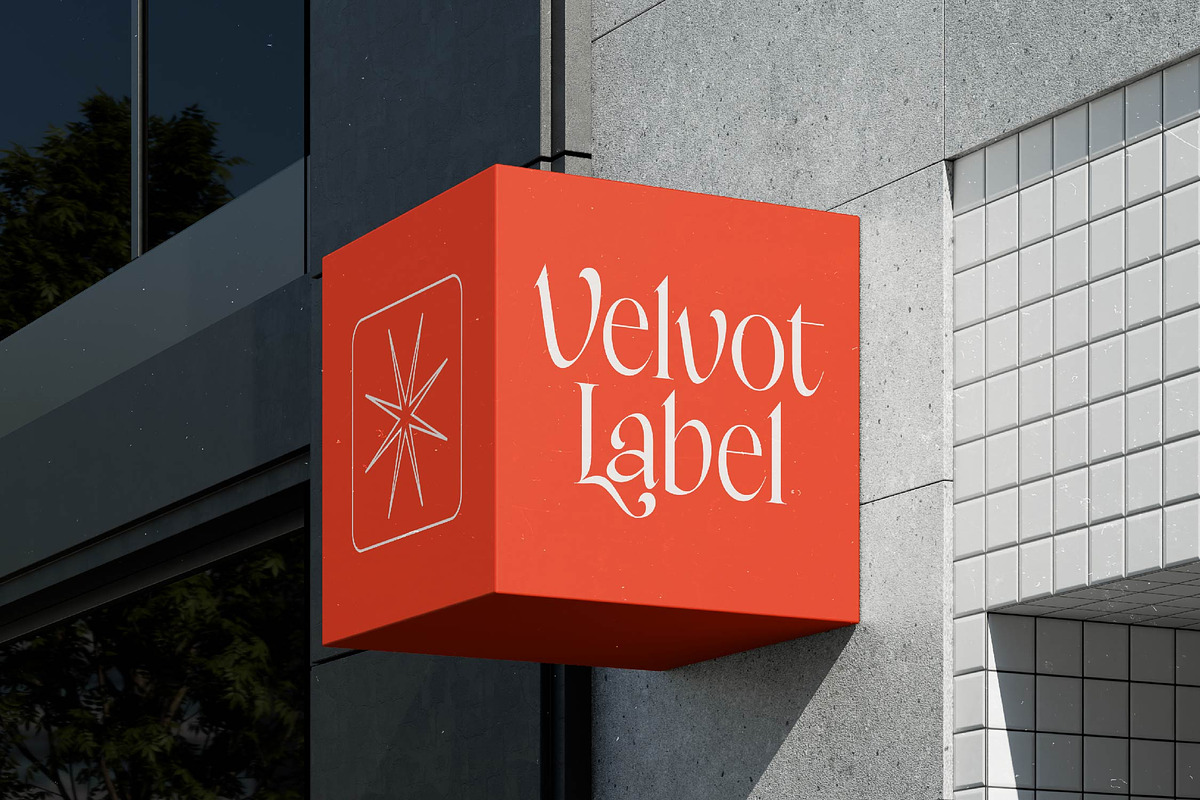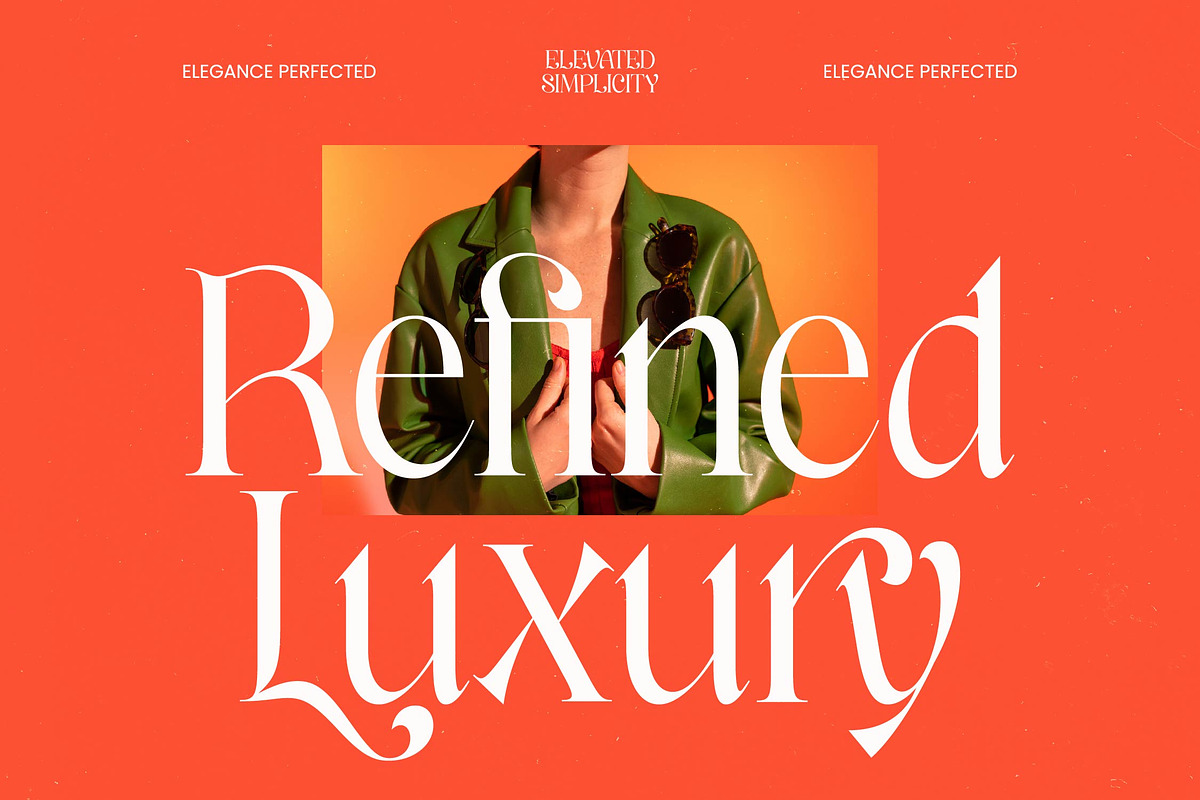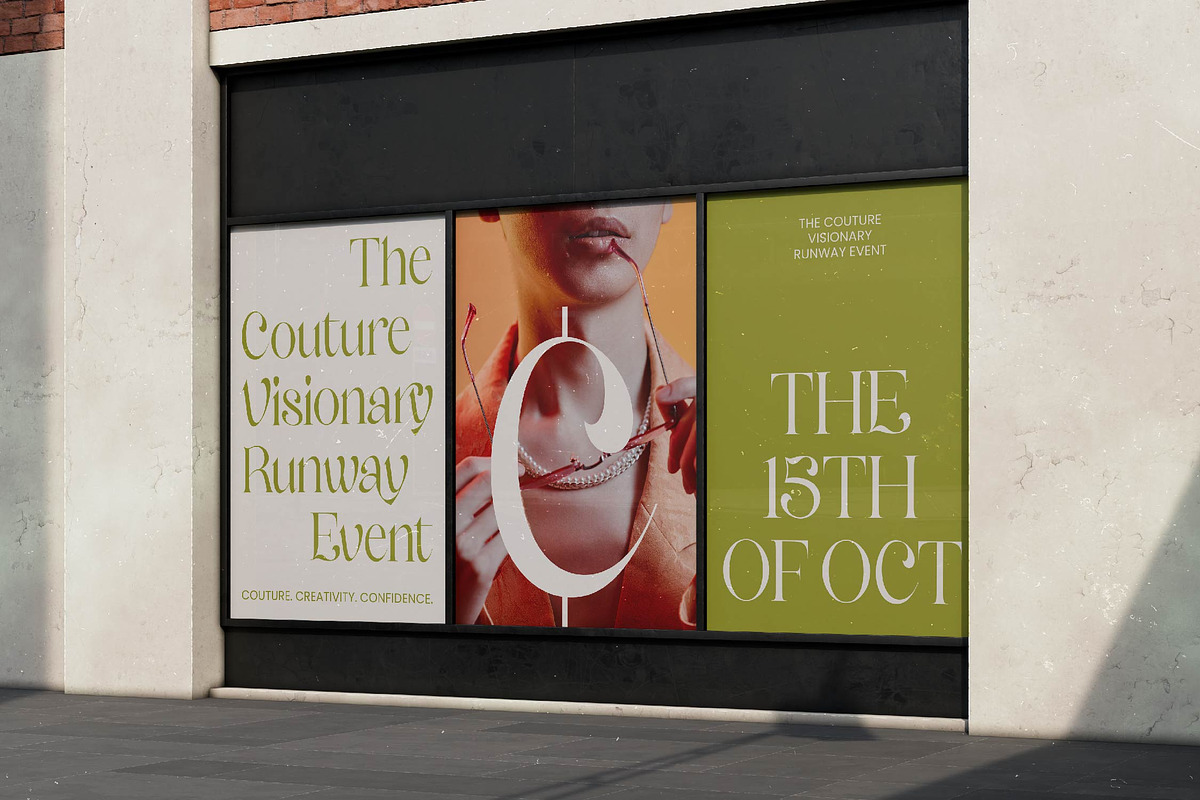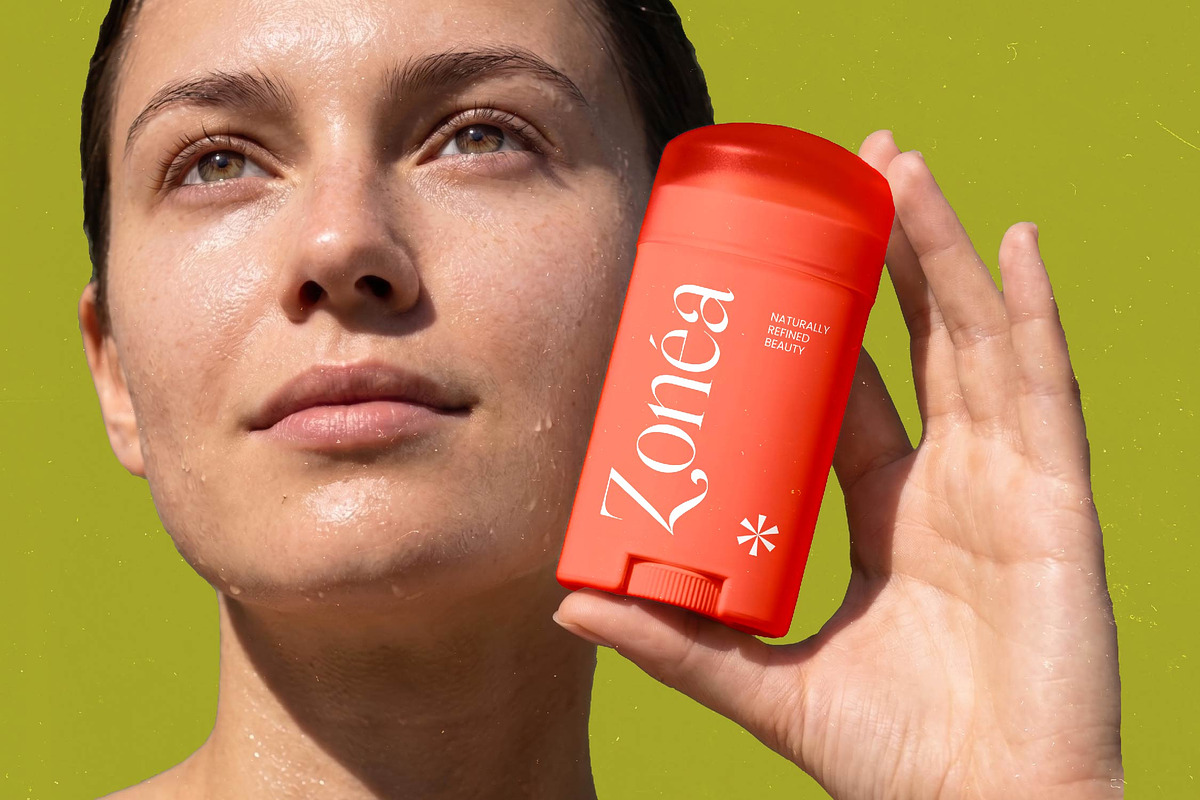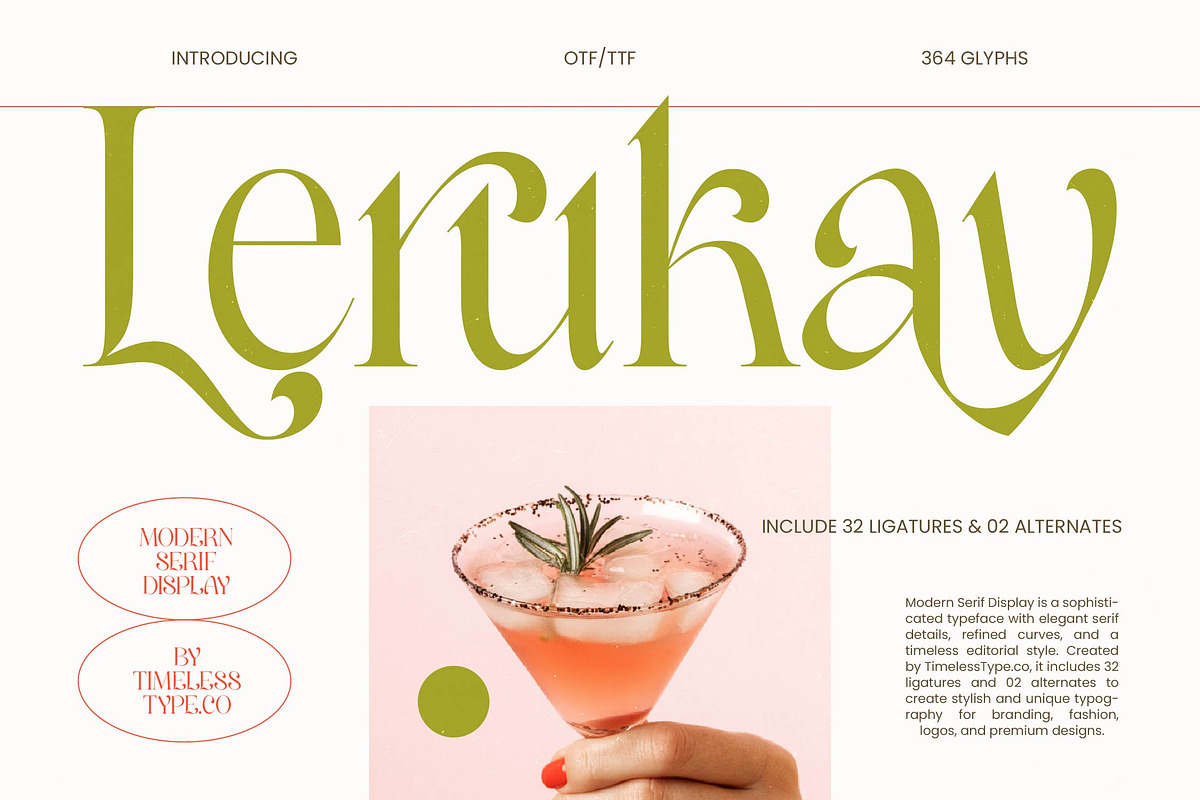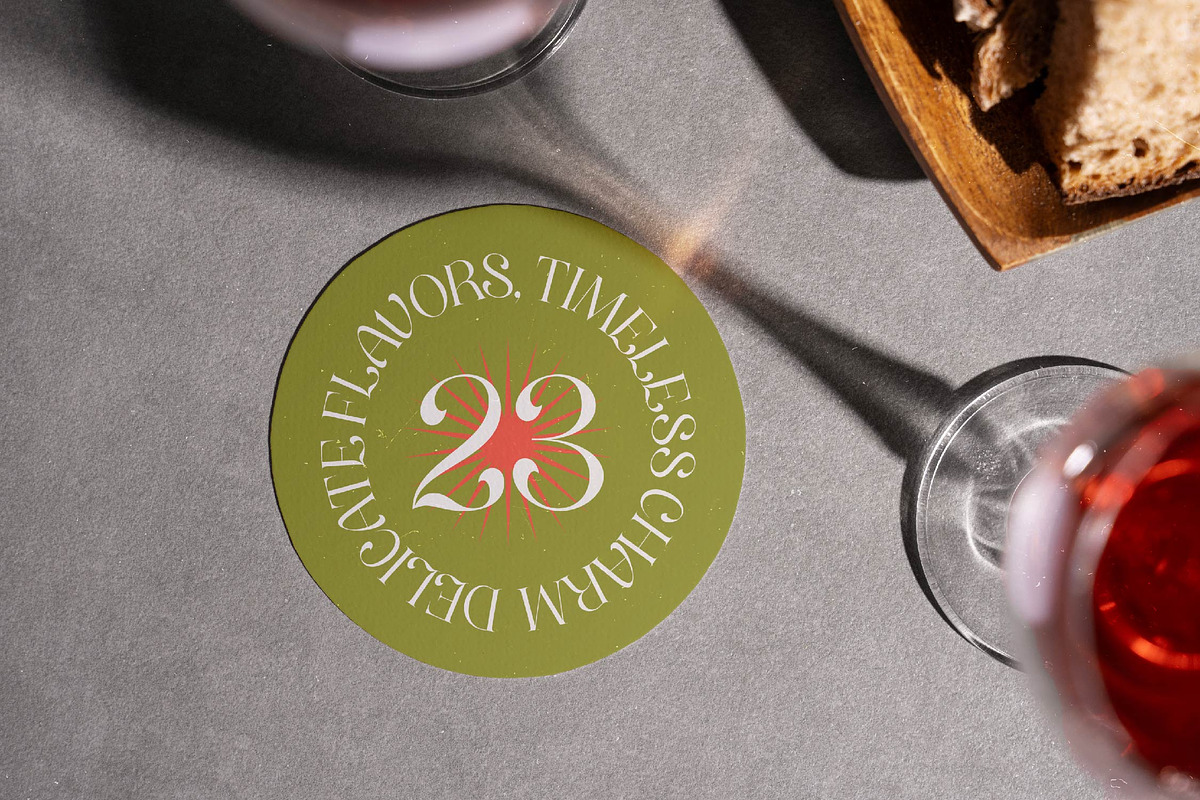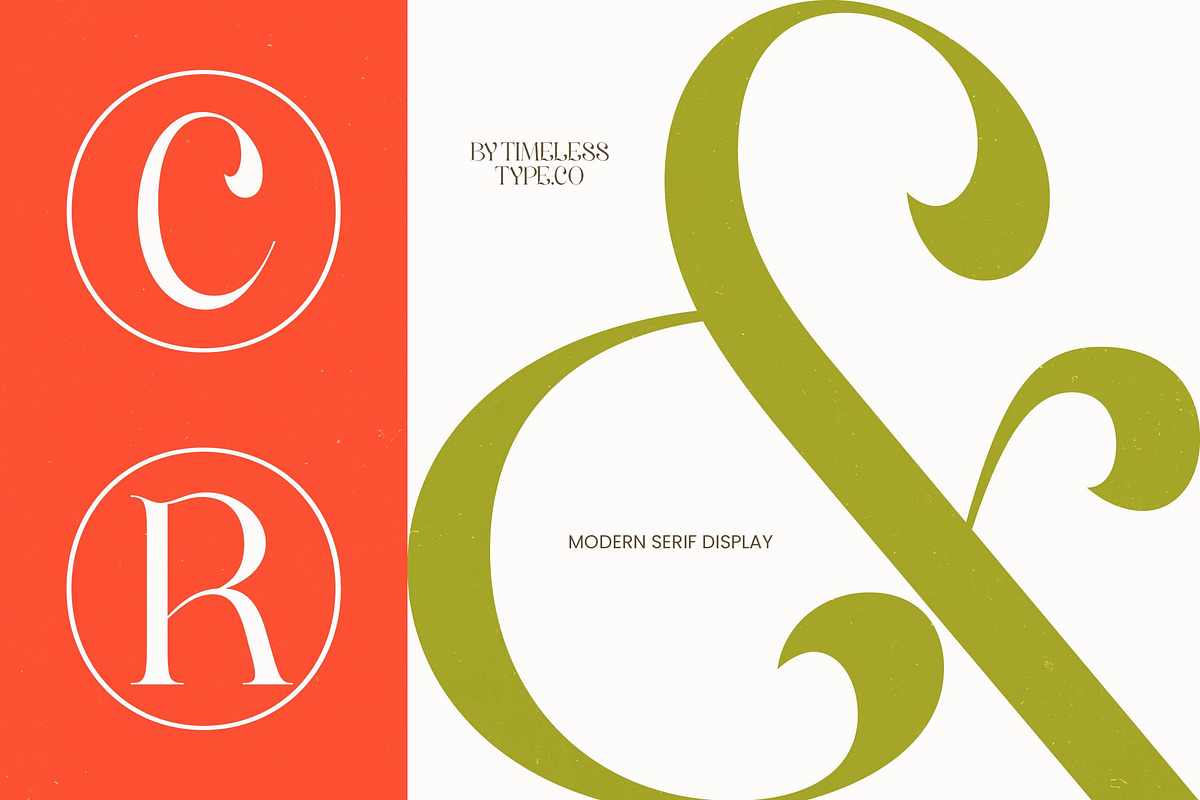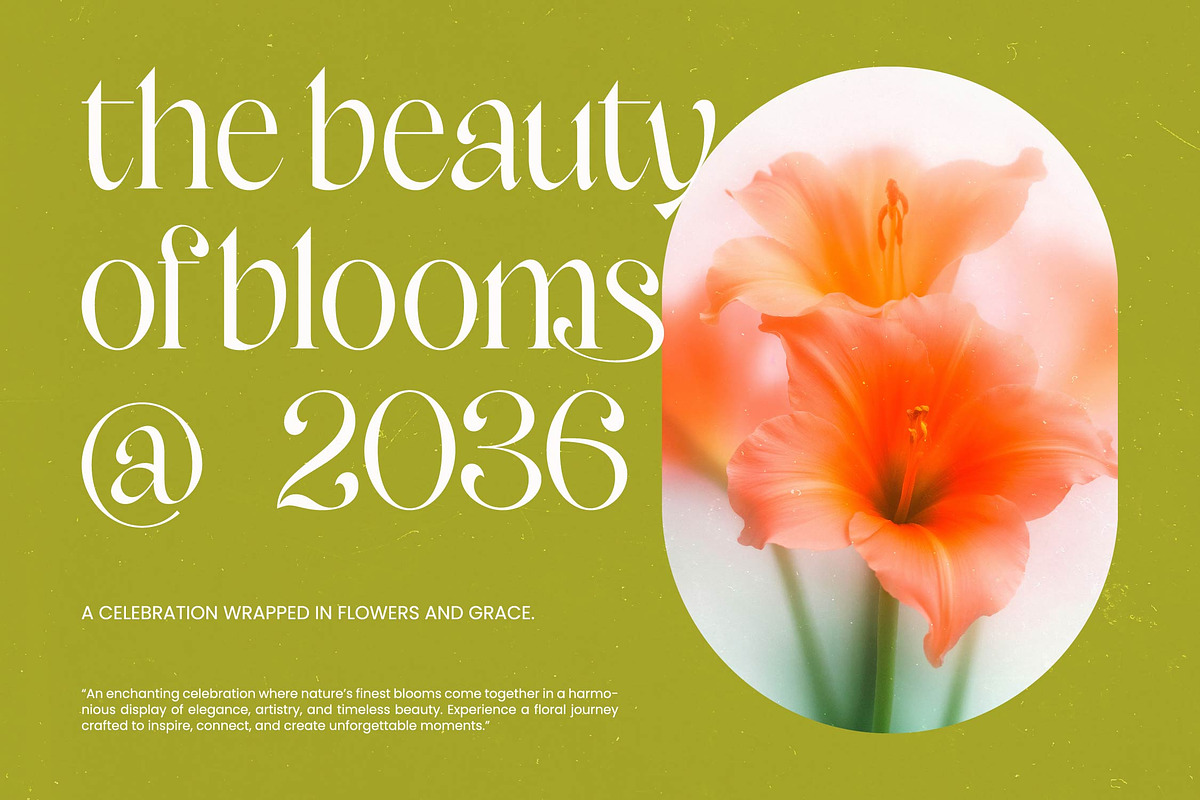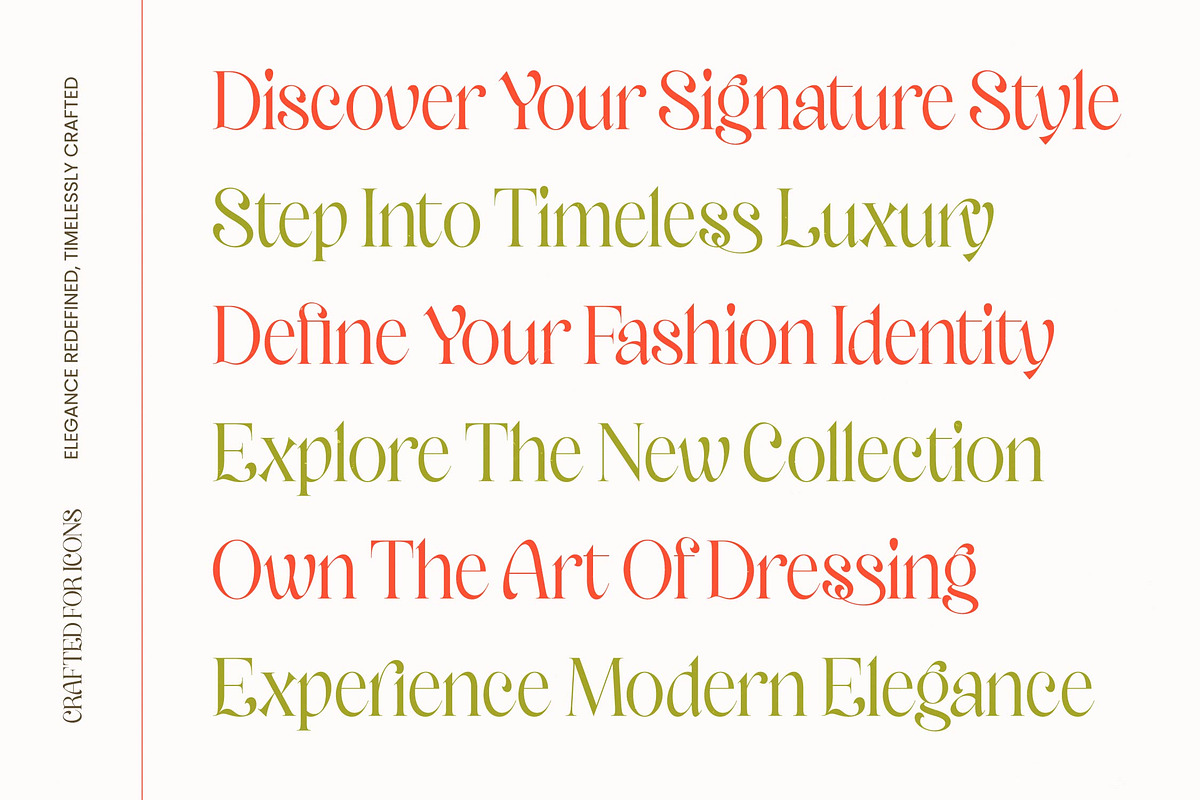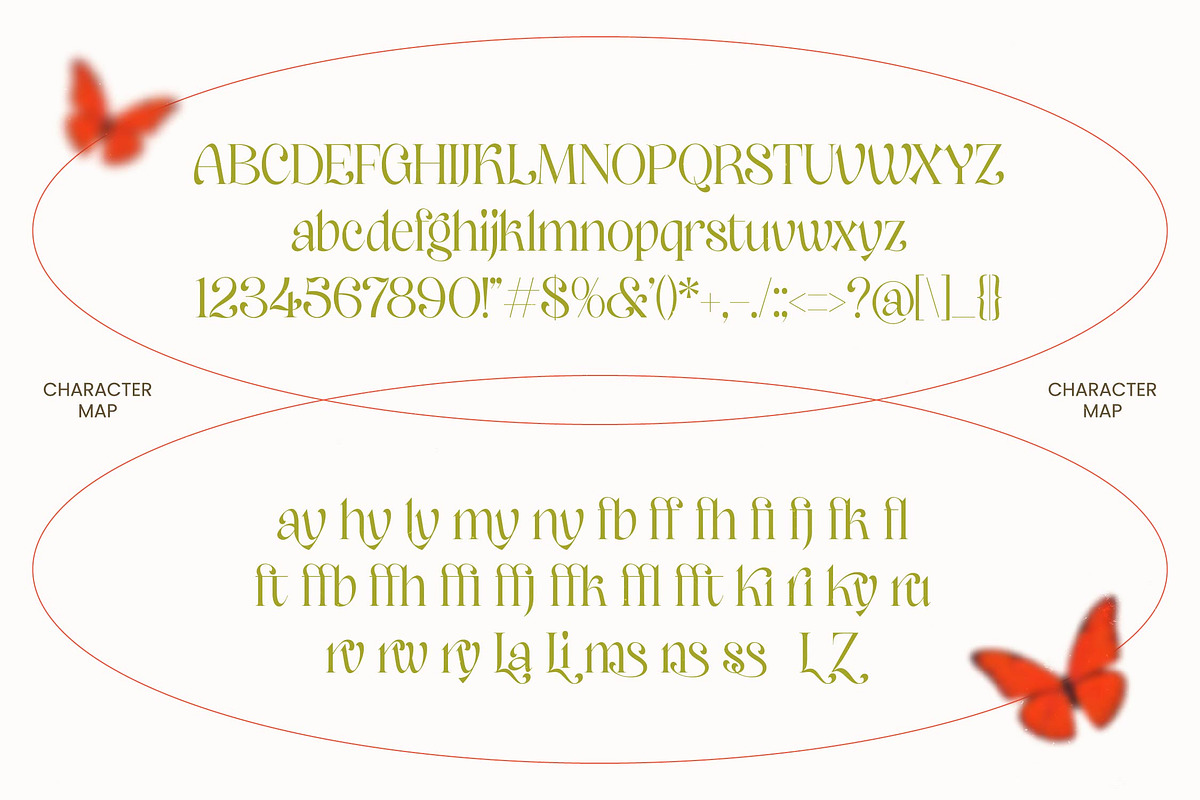
Lerukay Modern Luxury Serif
Lerukay - Modern Luxury Serif , Experience the pinnacle of sophisticated design with Lerukay, a typeface that redefines contemporary elegance for the discerning creative. This stunning display face invites designers to embrace a world of timeless luxury and refined artistic expression through its meticulously balanced letterforms.
Inspired by the grace of high-fashion editorial spreads and the sleek silhouettes of modern architecture, the font captures a unique atmosphere of effortless poise. Its balanced strokes and sharp details evoke the feeling of a sun-drenched European terrace or the curated interior of a high-end luxury boutique.
This modern serif display is meticulously crafted to deliver a powerful branding impact through its striking high-contrast serif anatomy. It serves as an essential editorial font for those seeking luxury typography that commands attention while maintaining a delicate, feminine grace.
Perfectly aligned with the current modern serif trend, this typeface meets the demand for character-driven typography in a saturated market. It stands out among editorial display fonts by offering a bespoke aesthetic that feels both retro-inspired and futuristically chic for global brands.
Elevate your next logo design or branding project with a font that transitions seamlessly from high-end packaging to sophisticated fashion layouts. It is an ideal choice for wedding invitations and professional editorial work where a touch of refined class is non-negotiable.
This comprehensive font package features 364 glyphs, including a generous set of 32 ligatures and unique alternates to expand your creative possibilities. Built with multilingual support and a full suite of international characters, it ensures your message reaches a global audience without sacrificing its swashes or decorative flair.